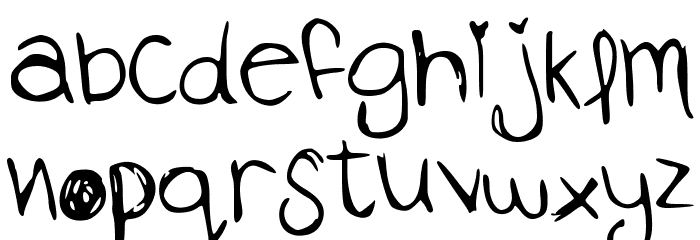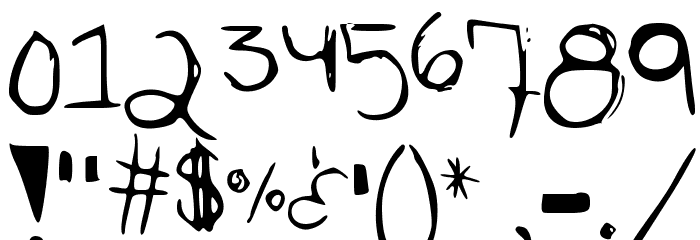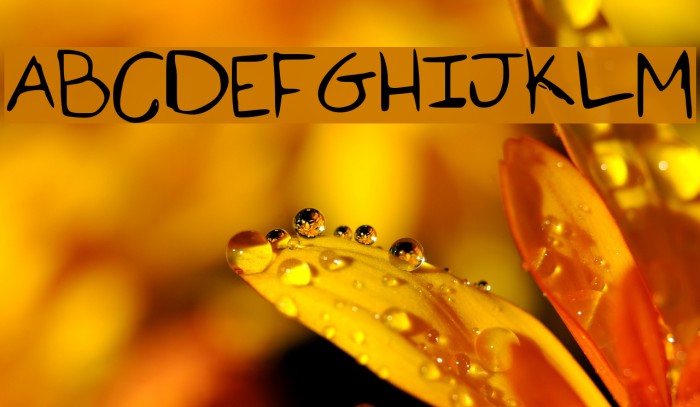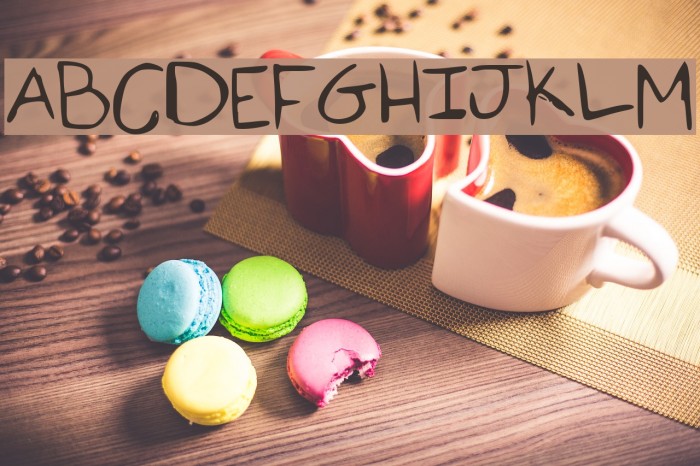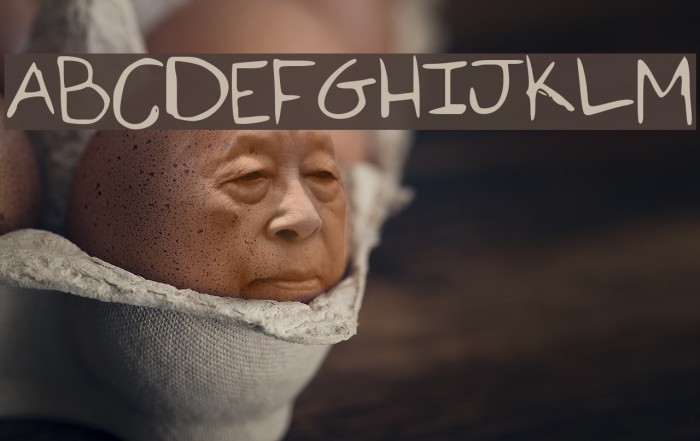
ah the monster is comming Font
This font exudes a playful and whimsical character, with its irregular and hand-drawn appearance. The letters are unevenly sized and spaced, giving it a casual and spontaneous feel. The uppercase and lowercase letters maintain a consistent style, with quirky curves and exaggerated strokes. The numbers and special characters follow the same playful aesthetic, adding to the font's unique personality. This font is perfect for projects that require a fun and informal touch, such as children's books, playful branding, or creative posters.
A playful, hand-drawn font with quirky curves and irregular strokes.
- Proposed Projects: Ideal for children's books, playful branding, creative posters, and informal invitations.
- Character Spacing: Wide